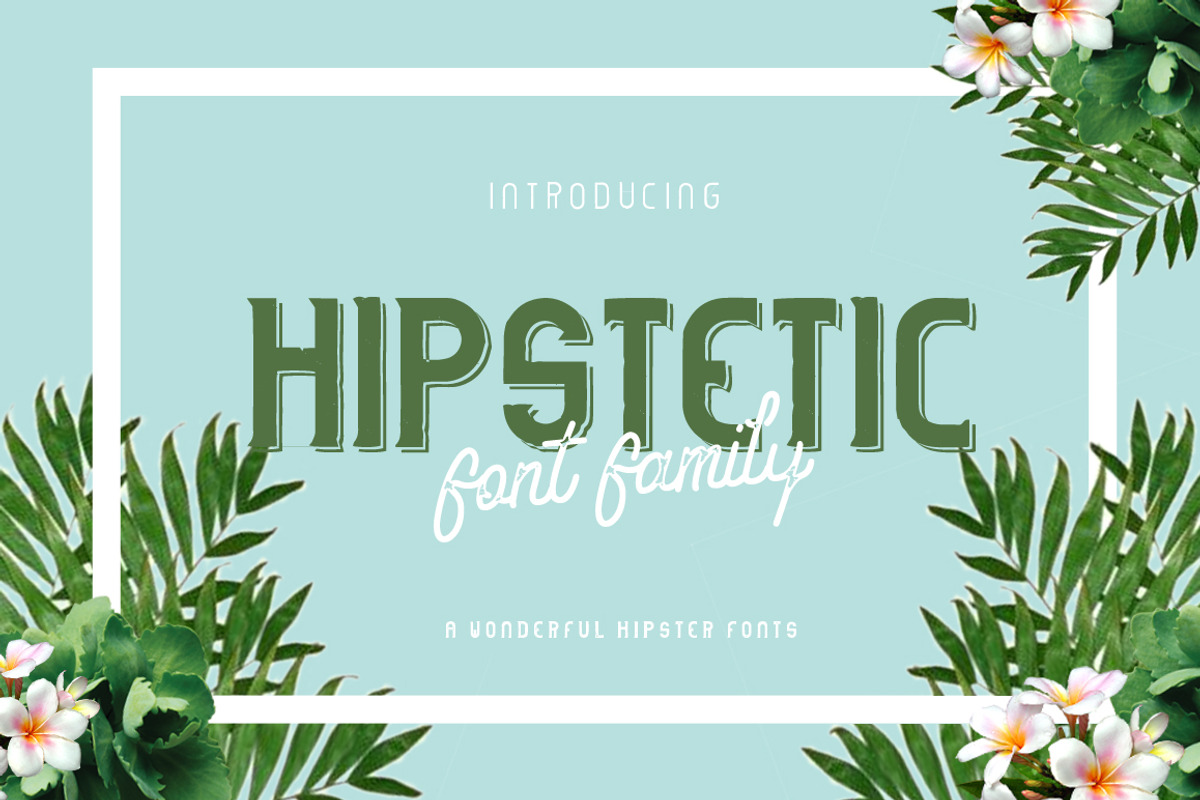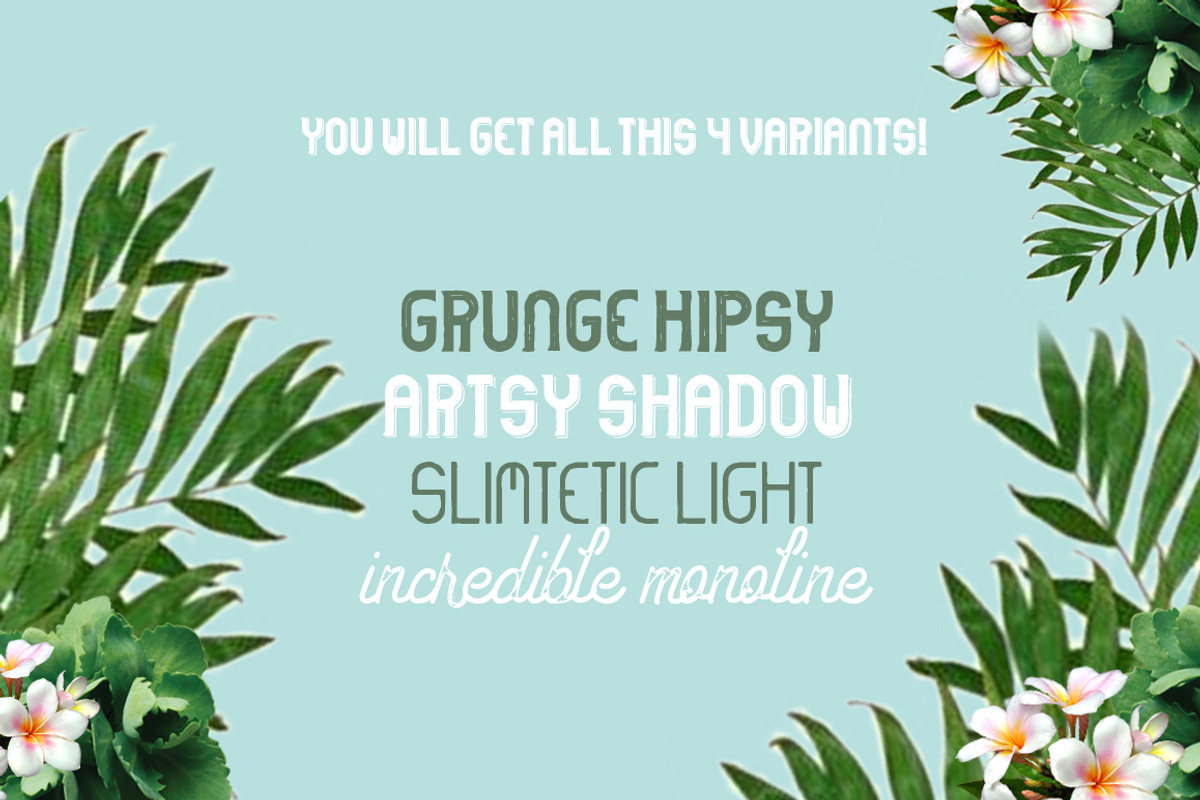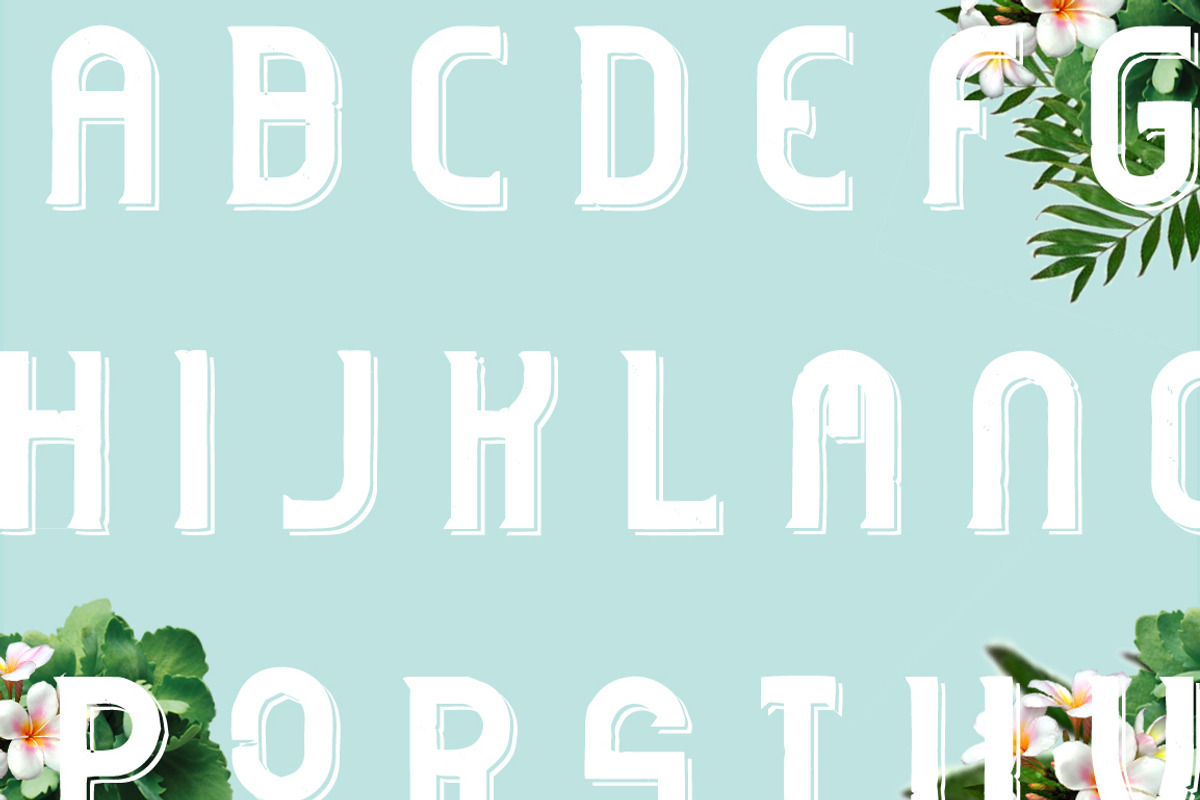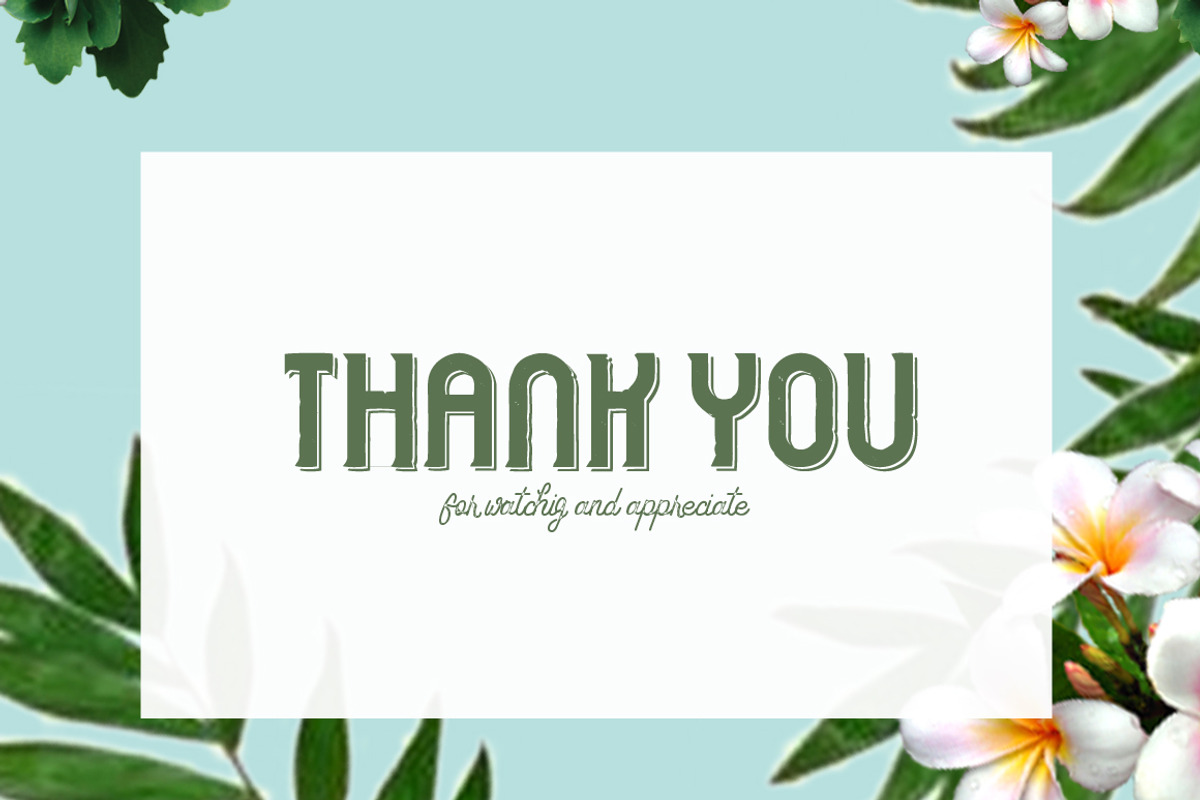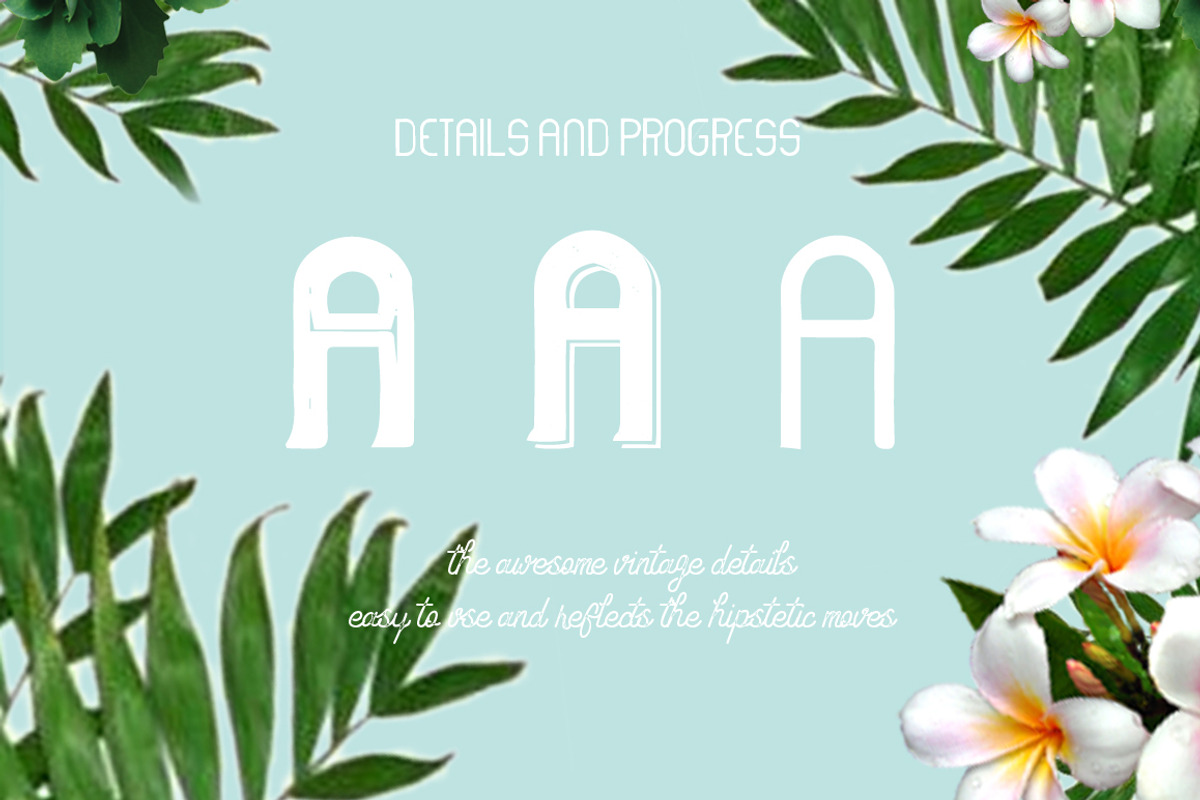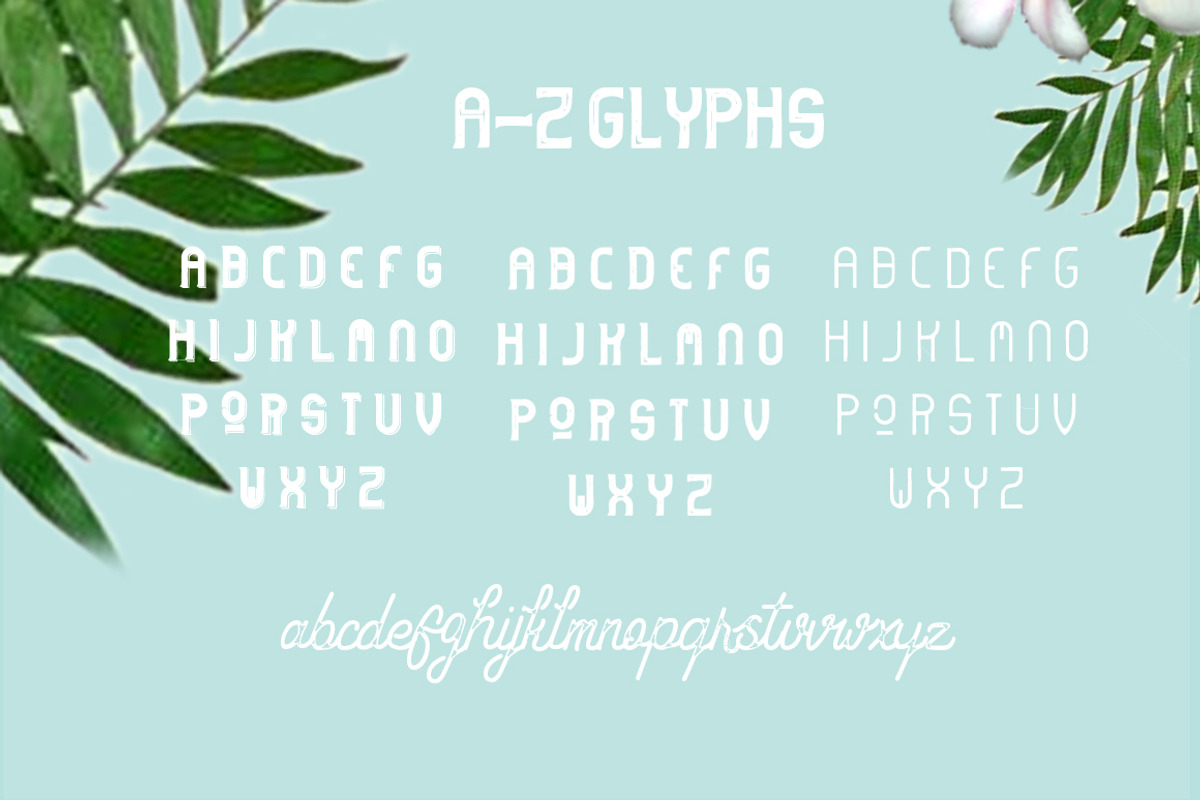
Hipstetic font family (Intro sale!)
Hipstetic font family (Intro sale!) by Haws.std is a font selected for branding, posters, packaging, typography.
- A-Z uppercase and lowercase only monoline Cool booster Handsome indentity 4 Otf files with bonus uppercase and lowercase A-Z only monoline H
Hipstetic font family (Intro sale!) by Haws.std fits naturally into Branding, posters, packaging, typography.